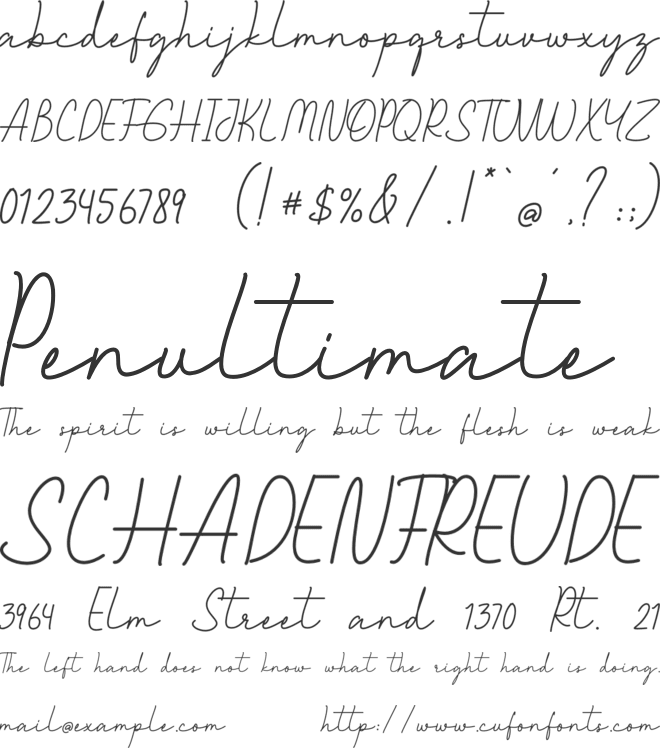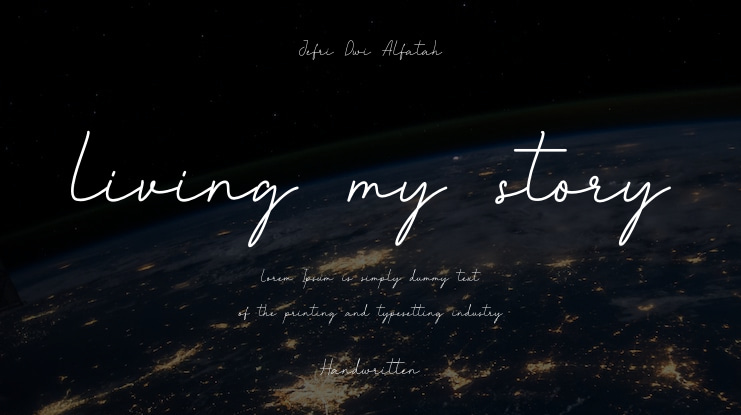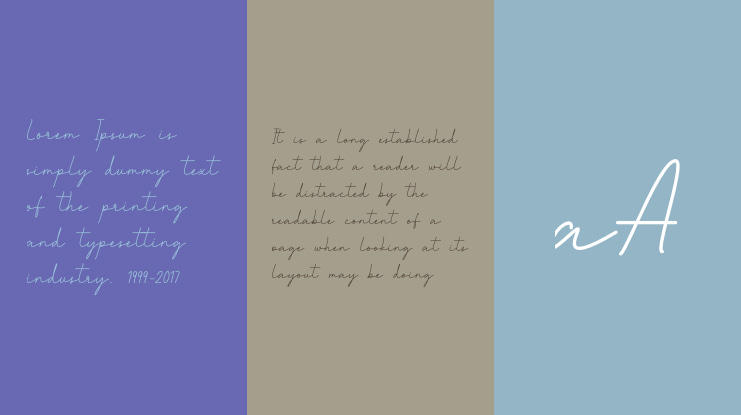
living my story Font
Living My Story is an elegant and luxurious handwritten script font designed to bring sophistication, beauty, and premium charm to every project.